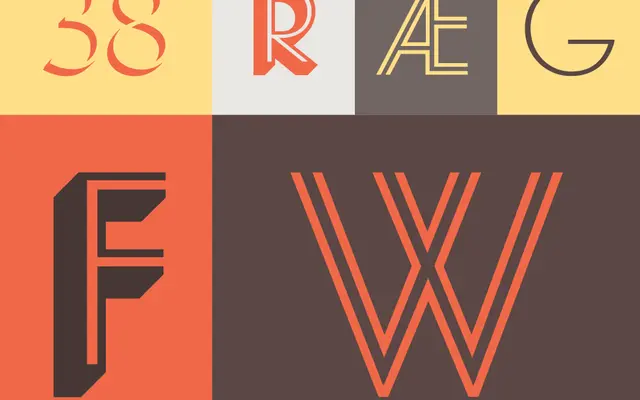
Landmark
Hoefler & Co · Jonathan Hoefler and the H&Co Design Studio · 2015
A chromatic inline display family built for layered colour work on posters, packaging and travel-inspired identities.
A chromatic display family by Jonathan Hoefler and the H&Co studio, made up of layered inline and shadow fonts that can be stacked and coloured to recreate the look of nineteenth century show lettering and mid-century travel posters. Designed for large sizes in posters, packaging and identity work that wants depth and ornament.
A chromatic display family built from layered inline and shadow fonts, drawing on nineteenth century show lettering and travel graphics for posters and packaging.